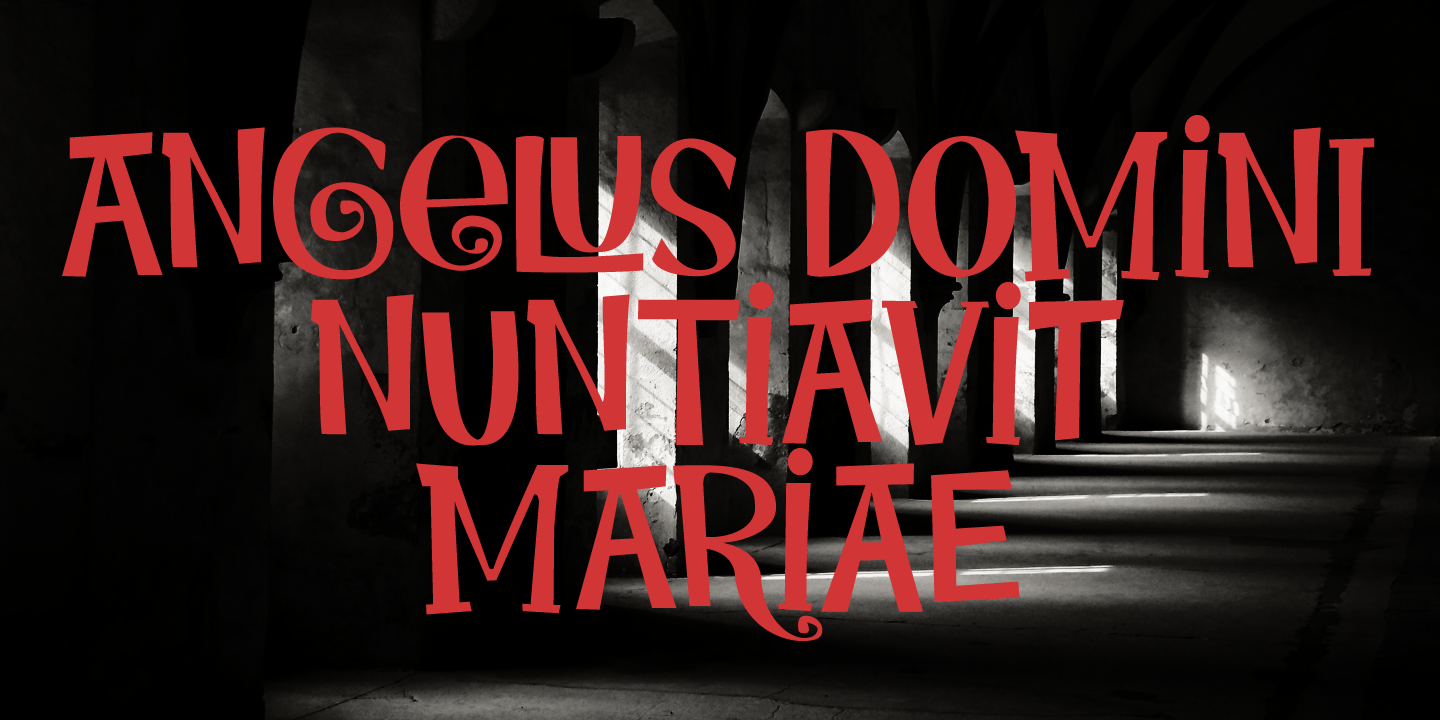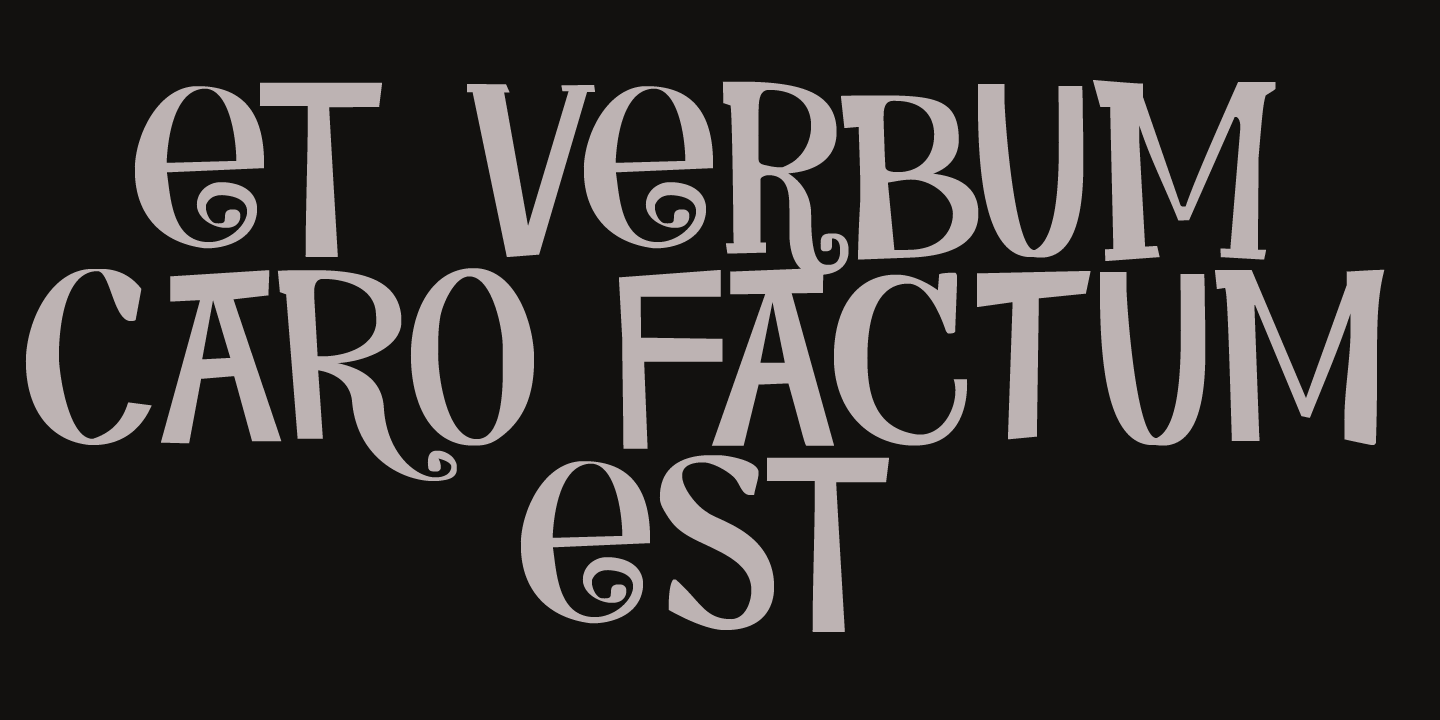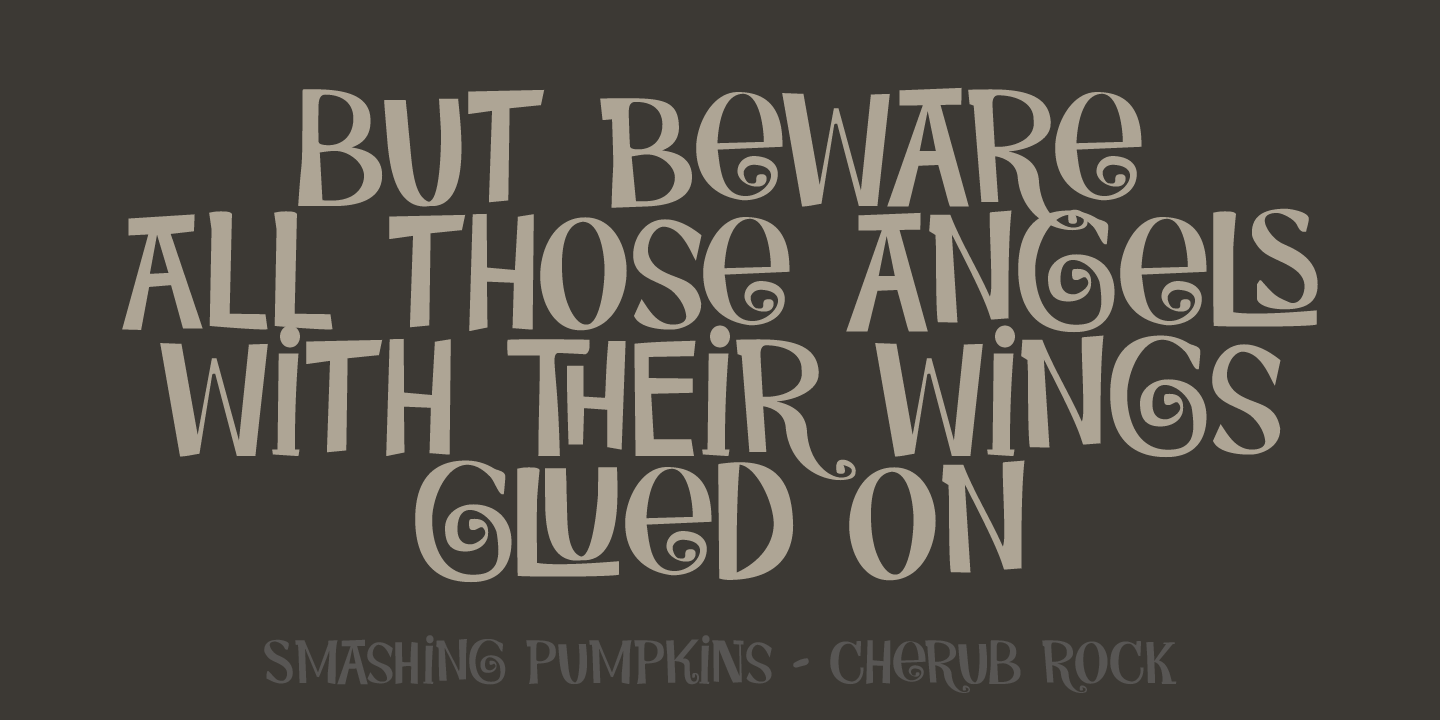
About Cherubina
Cherubina means ?Blessed?. It is a name derived from the Akkadian ?karabu / kuribu?, meaning ?blessing, blessed?. A cherub is a type of spiritual being mentioned in the Hebrew Bible, often depicted as a baby with wings. This font was based on the hand…